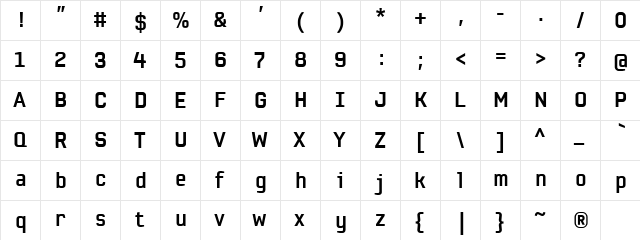
EAS Sans Bold
Design Context for EAS Sans Typeface
EAS Sans offers clean, dependable letterforms without strong stylistic allegiance, making it a practical choice for designers who need flexibility. Its bold stroke weight gives it real presence on the page.
Pro Tip: Pair EAS Sans with a font of contrasting weight or personality to build a more expressive typographic hierarchy.